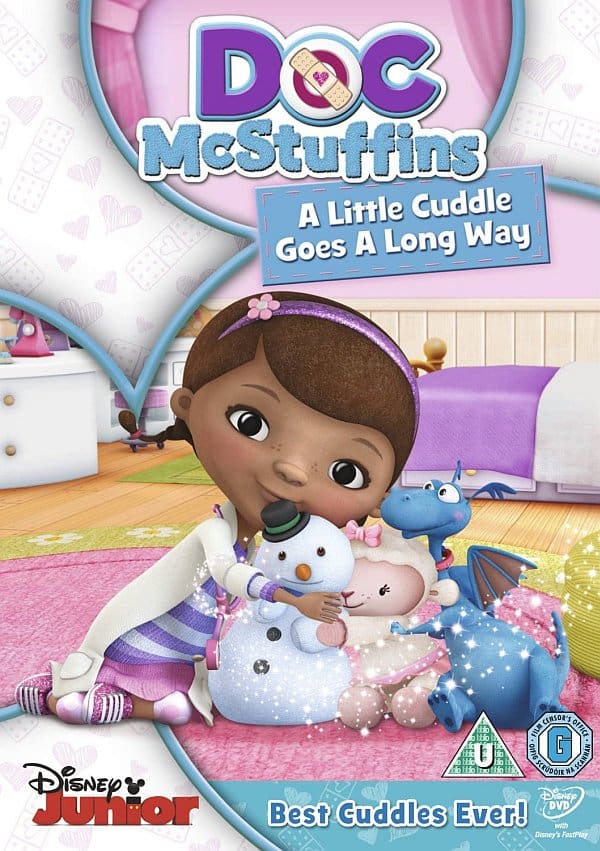
Doc McStuffins Font
AnimationDoc McStuffins is an American educational computer-animated children's television series that aired on Disney Channel and Disney Junior from 2012 - 2020. It shows a young girl named Dottie who wants to be a doctor and along with her stuffed animal friends learns about taking care of others.
Doc McStuffins' logo is probably hand-lettered since no matching fonts are available. Here are some alternative fonts that resemble the lettering; Eagle Bold or Ephesus ExtraBold for “DOC” part, and KB A Stitch in Time for “McStuffins” part.